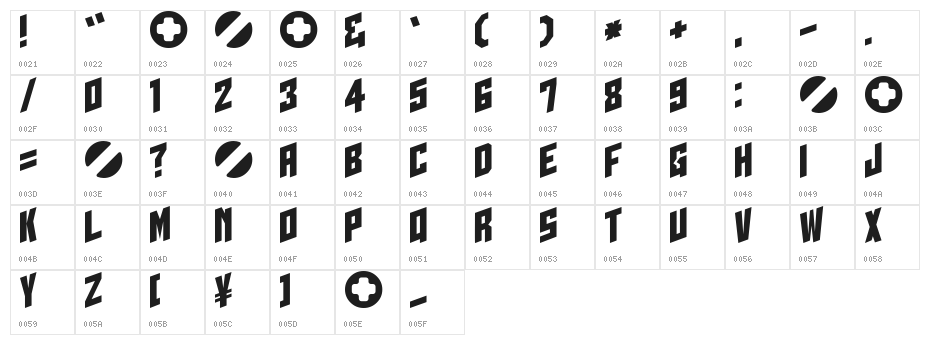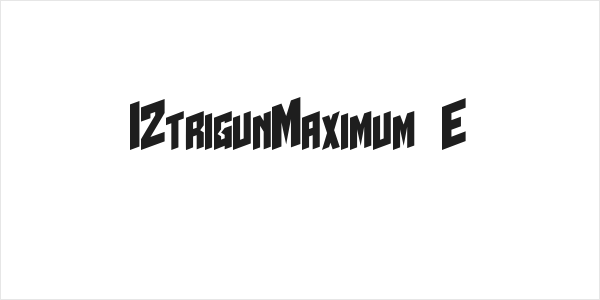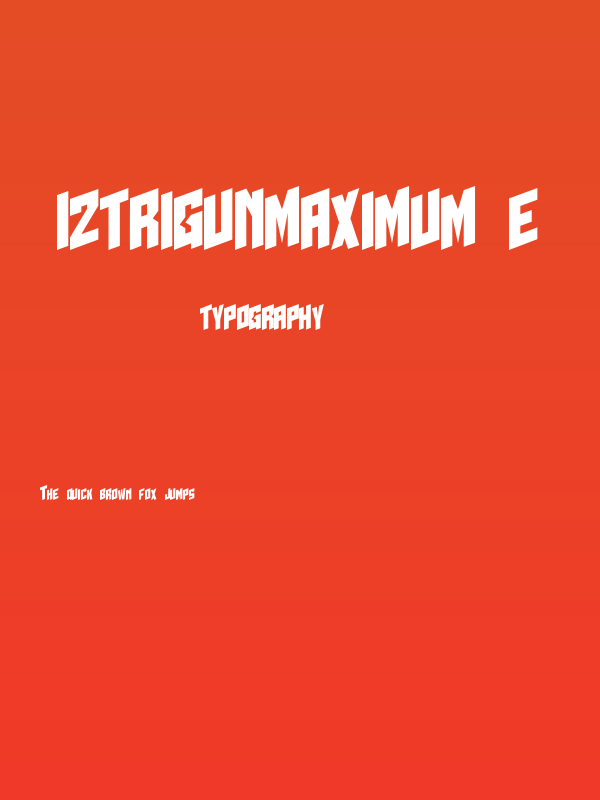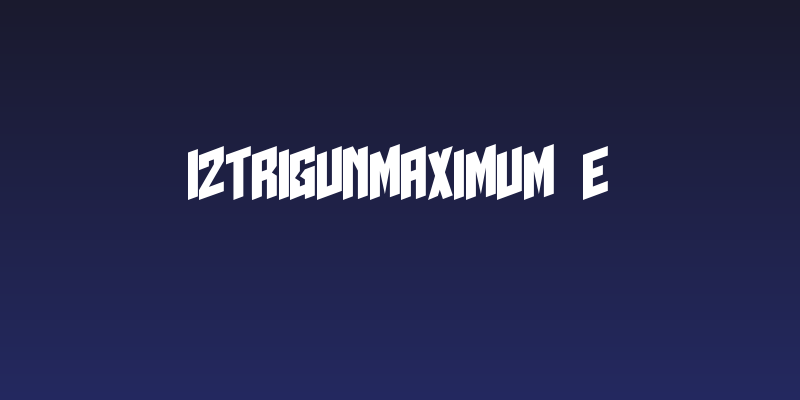
I2trigunMaximum E Font
I2trigunMaximum E Description
This font features a bold and dynamic style with sharp, angular edges and a strong presence. The characters are designed with a distinct geometric flair, creating a sense of movement and energy. The uppercase letters are particularly striking, with exaggerated angles and a slightly condensed form that enhances their impact. The numbers and special characters maintain this bold aesthetic, ensuring consistency across all glyphs. This font is ideal for projects that require a strong visual statement, such as posters, logos, or headlines. Its unique style makes it stand out, capturing attention with its modern and edgy design.
Proposed ProjectsIdeal for posters, logos, headlines, and any project needing a strong visual impact.